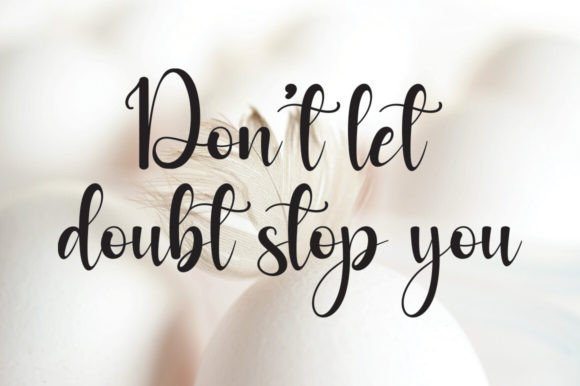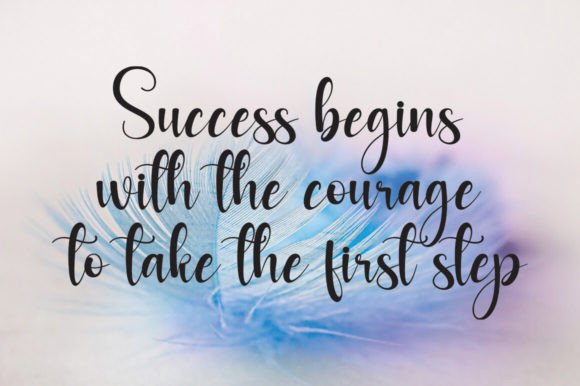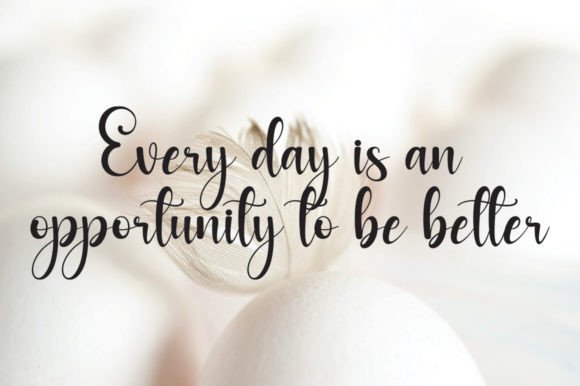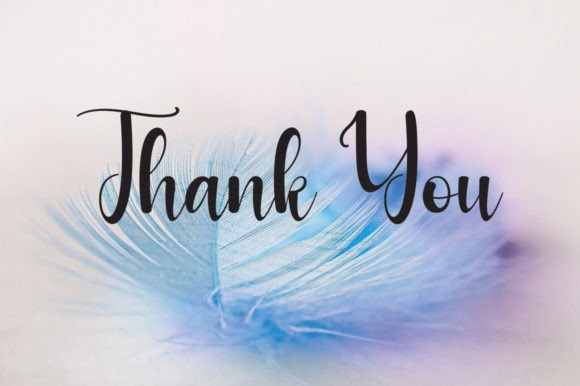
Bride Font: The Sweetest Cursive Hand-Drawn Font for Your Design Projects
Are you looking for a font that embodies the essence of romance, sweetness, and playfulness? Look no further than Bride Font, a charming, cursive, hand-drawn font that is sure to captivate your audience with its gentle, romantic aura. In this article, we’ll dive into the world of Bride Font, exploring its unique features, uses, and benefits for designers and crafters.
Introducing Bride Font: A Sweet and Airy Typeface
Bride Font is a beautiful, hand-drawn font that exudes an airy feel, making it perfect for designs that require a touch of elegance and sophistication. With its cursive strokes and whimsical curves, this font is sure to add a romantic twist to your projects. Whether you’re working on a wedding invitation, a branding campaign, or a digital product, Bride Font is an excellent choice for those seeking a typography that is both refined and playful.
Key Features of Bride Font
- Hand-drawn with love: Each letter and stroke of Bride Font has been carefully crafted to ensure a unique and personal touch.
- Cursive and flowing: The font’s cursive nature gives it a smooth, flowing quality that is perfect for creating beautiful, eye-catching designs.
- Airy and light: Bride Font has an airy feel that prevents it from feeling too heavy or overpowering, making it ideal for use in a variety of design contexts.
- Sophisticated yet playful: This font strikes the perfect balance between sophistication and playfulness, making it suitable for a wide range of projects.
Bride Font is an incredibly versatile font that can be used in a multitude of design projects, including:
- Wedding invitations and stationery: The font’s romantic and elegant nature makes it perfect for wedding-related designs.
- Branding and packaging: Use Bride Font to add a touch of whimsy and sophistication to your brand’s identity.
- Digital products: The font’s clean and legible design makes it suitable for use in digital products, such as e-books, apps, and websites.
- Signage and display: Bride Font can be used to create beautiful, eye-catching signs and displays for events, businesses, or personal projects.
Why Choose Bride Font?
With so many fonts available, why choose Bride Font for your design projects? Here are just a few reasons:
- Unique and distinctive: Bride Font’s hand-drawn nature ensures that your designs will stand out from the crowd.
- Easy to read: The font’s clean and legible design makes it easy to read, even at smaller sizes.
- Customizable: With its range of applications and uses, Bride Font can be tailored to suit your specific design needs.
Tips for Using Bride Font Effectively
To get the most out of Bride Font, here are a few tips to keep in mind:
- Pair with contrasting fonts: Combine Bride Font with a contrasting font to create visual interest and add depth to your designs.
- Experiment with colors: Play around with different colors to find the perfect match for your design and brand.
- Don’t be afraid to get creative: Bride Font is a versatile font that can be used in a variety of creative ways, so don’t be afraid to experiment and try new things.
In conclusion, Bride Font is a charming, cursive, hand-drawn font that is sure to add a touch of romance and sweetness to your design projects. With its airy feel, sophisticated yet playful nature, and versatility, this font is perfect for designers and crafters looking for a unique and distinctive typography solution. Whether you’re working on a wedding invitation, branding campaign, or digital product, Bride Font is an excellent choice for those seeking to infuse their designs with joy and a whisper of love.